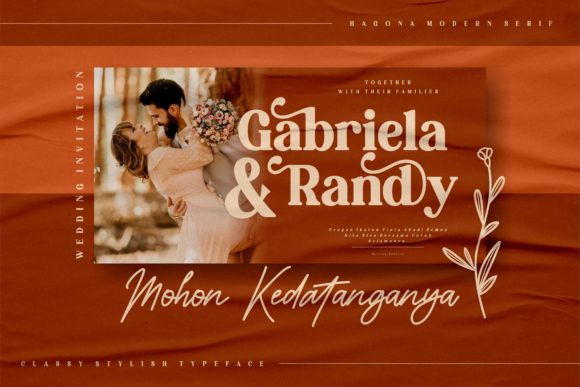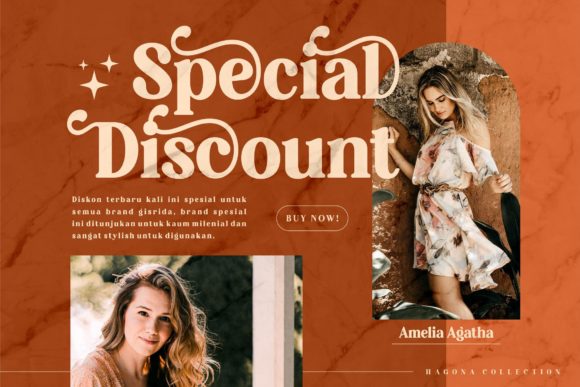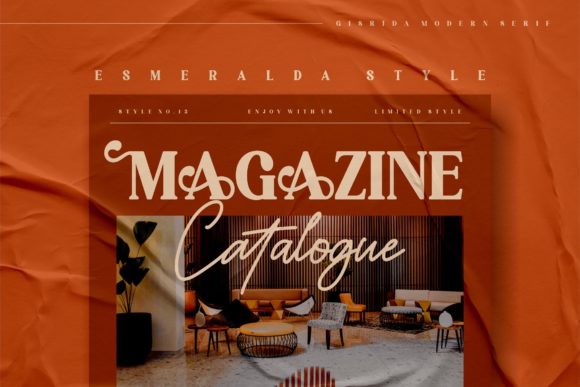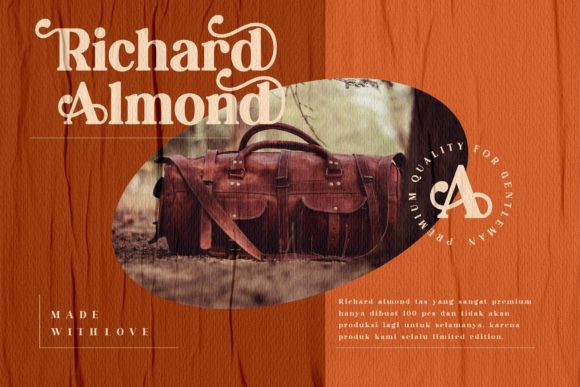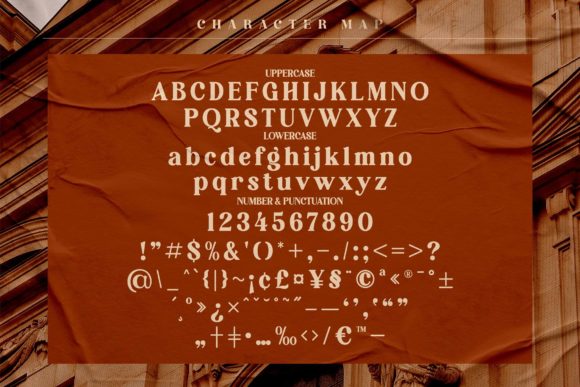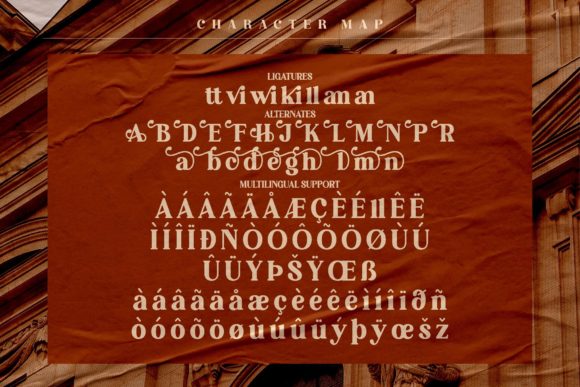
Introducing Hagona Font: The Ultimate Bold and Stylish Serif Font for Designers and Crafters
Are you tired of using the same old fonts in your designs? Look no further! Hagona Font is here to revolutionize your creative projects with its bold, stylish, and thick lettered serif font. This stunning font is perfect for designers and crafters who want to add a touch of elegance and sophistication to their work.
What Makes Hagona Font Special?
Hagona Font is not just any ordinary font. It’s a PUA (Private Use Area) encoded font, which means you can access all of the glyphs and swashes with ease. This feature allows you to unleash your creativity and experiment with different combinations of letters and symbols to create unique and eye-catching designs.
With Hagona Font, you can add a confident touch to your favorite creations and be amazed by the outcome generated. Whether you’re working on a logo, branding project, or a craft project, this font is sure to make your work stand out from the crowd.
Key Features of Hagona Font
- Bold and Stylish: Hagona Font features bold and stylish lettering that is sure to grab attention.
- Thick Lettered: The font’s thick lettering gives it a sturdy and robust feel that’s perfect for headlines and titles.
- Serif Font: The serif font style adds a touch of elegance and sophistication to your designs.
- PUA Encoded: The font’s PUA encoding allows you to access all glyphs and swashes with ease.
How to Use Hagona Font in Your Designs
Once you’ve selected the font, you can experiment with different sizes, colors, and combinations of letters and symbols to create unique and eye-catching designs. The font’s PUA encoding makes it easy to access all of the glyphs and swashes, so you can let your creativity run wild.
Benefits of Using Hagona Font
- Unique Designs: With Hagona Font, you can create unique and eye-catching designs that stand out from the crowd.
- Elegance and Sophistication: The font’s serif style and bold lettering add a touch of elegance and sophistication to your designs.
- Ease of Use: The font’s PUA encoding makes it easy to access all glyphs and swashes, so you can focus on creating amazing designs.
- Versatility: Hagona Font is perfect for a wide range of design projects, from logos and branding to craft projects and more.
If you’re looking for a bold, stylish, and thick lettered serif font that will take your designs to the next level, look no further than Hagona Font. With its PUA encoding and ease of use, this font is perfect for designers and crafters who want to create unique and eye-catching designs. Download Hagona Font today and unleash your creativity!